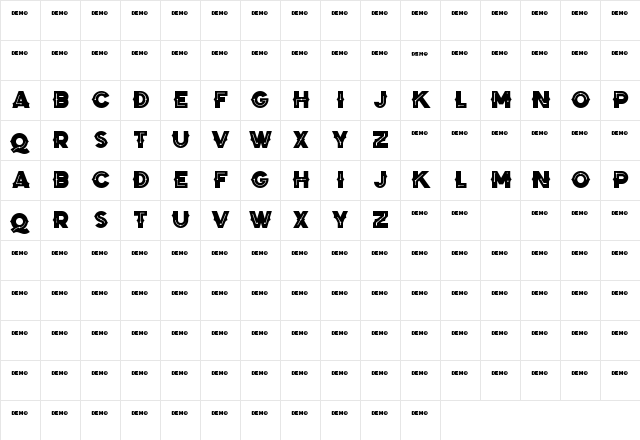
Zilap Black Storm Black
| Foundry | Zilap Estudio |
| Designer | Juan Navarro |
Design Context for Zilap Black Storm Typeface
Zilap Black Storm is a composed and adaptable typeface that performs quietly and consistently across a wide range of design contexts.